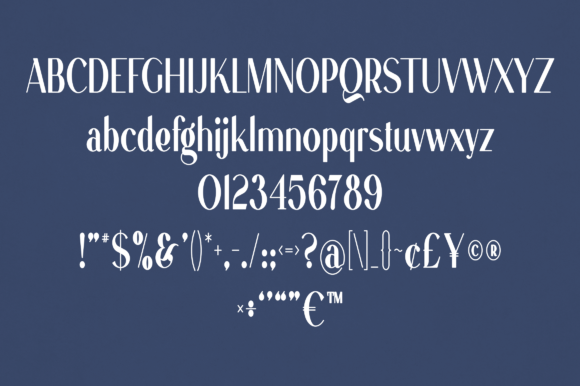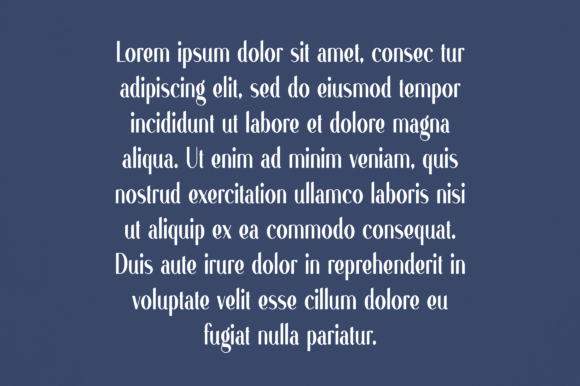
Eliora Font: Elevate Your Typography with Elegance and Versatility
Are you tired of using the same old fonts for your design projects? Look no further than Eliora Font, a stunning and versatile typeface that will add a touch of sophistication to any design. Whether you’re working on a logo, branding project, headline, or plain text, Eliora Font is the perfect choice for designers and crafters looking to create something truly unique.
The Characteristics of Eliora Font
Eliora Font is an elegant and refined typeface that boasts a range of characteristics that make it perfect for a variety of design applications. Its sleek lines, beautiful curves, and precise craftsmanship make it a joy to use, while its versatility ensures that it will work seamlessly with a range of design styles.
One of the standout features of Eliora Font is its ability to add a touch of sophistication to any design. Whether you’re working on a high-end branding project or a simple text overlay, Eliora Font is sure to impress. Its elegant lines and refined curves make it perfect for designs that require a level of sophistication and poise.
The Benefits of Using Eliora Font
So why choose Eliora Font for your next design project? Here are just a few benefits of using this amazing typeface:
- Uniqueness: Eliora Font is a truly unique typeface that will set your design apart from the crowd. Its elegant lines and refined curves make it perfect for designers who want to create something truly special.
- Versatility: Whether you’re working on a logo, branding project, headline, or plain text, Eliora Font is the perfect choice. Its versatility ensures that it will work seamlessly with a range of design styles.
- Elegance: Eliora Font is an elegant and refined typeface that will add a touch of sophistication to any design. Its sleek lines and beautiful curves make it perfect for high-end branding projects and designs that require a level of poise.
Design Applications for Eliora Font
Eliora Font is a versatile typeface that can be used in a range of design applications. Here are just a few ideas to get you started:
- Branding Projects: Eliora Font is perfect for branding projects that require a level of sophistication and elegance. Its sleek lines and refined curves make it perfect for logos, business cards, and other marketing materials.
- Home-Ware Designs: Add a touch of elegance to your home-ware designs with Eliora Font. Its beautiful curves and precise craftsmanship make it perfect for product packaging, labels, and other design elements.
- Product Packaging: Eliora Font is a great choice for product packaging that requires a level of sophistication and poise. Its elegant lines and refined curves make it perfect for labels, tags, and other design elements.
- Magazine Headers: Add a touch of elegance to your magazine headers with Eliora Font. Its sleek lines and beautiful curves make it perfect for titles, headings, and other design elements.
- Text Overlays: Eliora Font is also perfect for use as a stylish text overlay to any background image. Its elegant lines and refined curves make it perfect for adding a touch of sophistication to any design.
Tips for Using Eliora Font
Here are a few tips for using Eliora Font in your design projects:
- Experiment with Different Sizes: Eliora Font looks great in a range of sizes, from large headings to small text overlays. Experiment with different sizes to find the perfect fit for your design.
- Pair with Other Fonts: Eliora Font pairs well with a range of other fonts, from sans-serif typefaces to script fonts. Experiment with different pairings to find the perfect combination for your design.
- Use in Combination with Images: Eliora Font looks great when used in combination with images. Experiment with different background images and text overlays to find the perfect combination for your design.
Eliora Font is a stunning and versatile typeface that is perfect for designers and crafters looking to add a touch of elegance and sophistication to their design projects. Its sleek lines, beautiful curves, and precise craftsmanship make it a joy to use, while its versatility ensures that it will work seamlessly with a range of design styles. Whether you’re working on a branding project, home-ware design, product packaging, or simply a stylish text overlay, Eliora Font is the perfect choice.